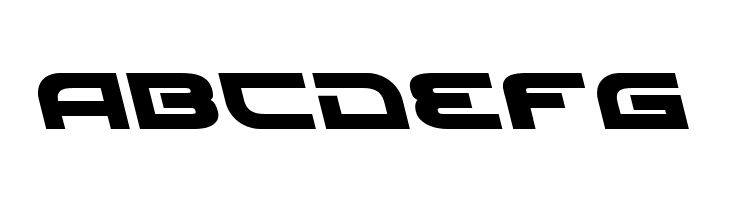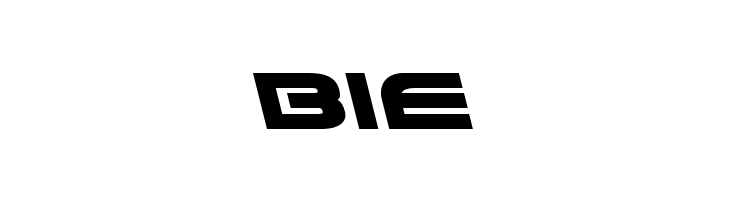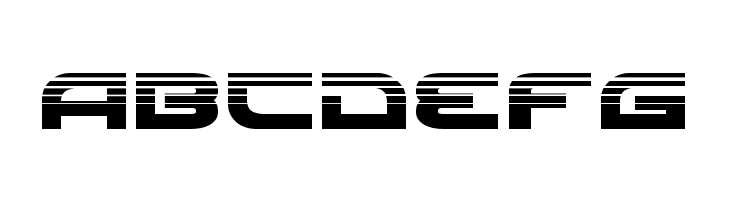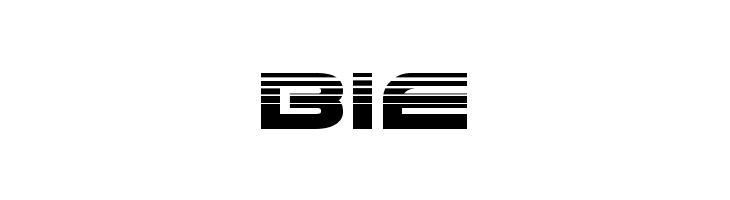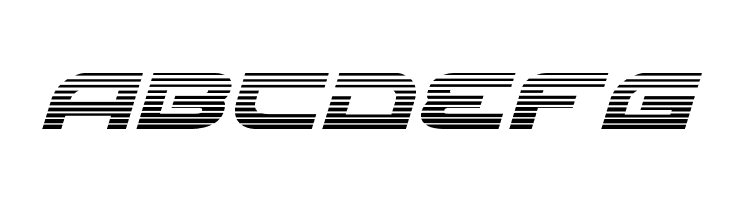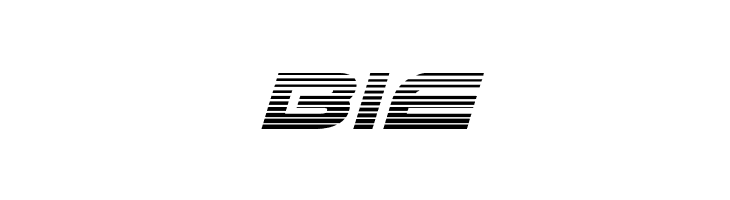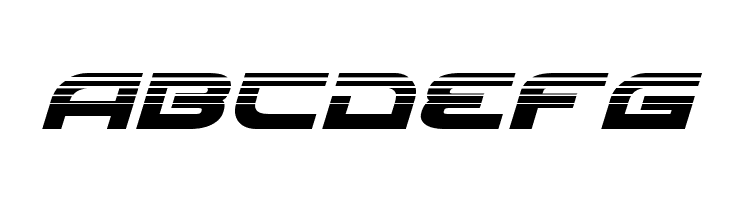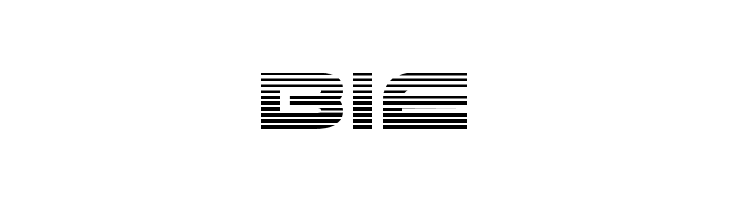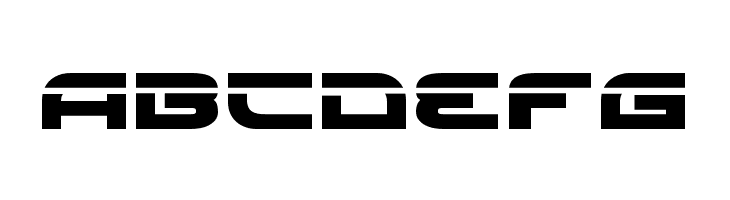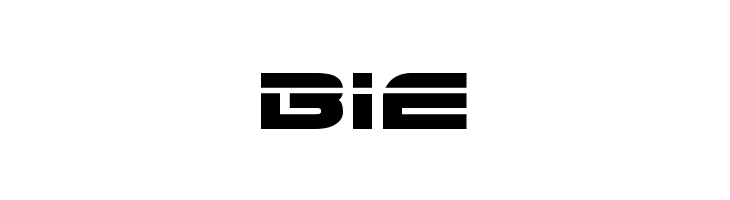
• Battlefield Expanded Italic
A bold, expanded, and italicized font with a futuristic and dynamic style.
• Battlefield Gradient
A futuristic, gradient-lined font with a digital and modern aesthetic.
• Battlefield Gradient Italic
A bold, italicized font with a gradient effect and modern, futuristic style.
• Battlefield Halftone
A bold, futuristic font with a halftone effect and geometric design.
• Battlefield Halftone Italic
A bold, futuristic italic font with a halftone effect and dynamic design.
• Battlefield Italic
• Battlefield Laser
A futuristic, bold font with geometric shapes and sharp angles.
• Battlefield Laser Italic
A bold, italicized font with a futuristic and dynamic design.
• Battlefield Leftalic
A bold, futuristic font with angular, slanted characters.
• Battlefield Rock
A bold, futuristic font with angular, geometric shapes.